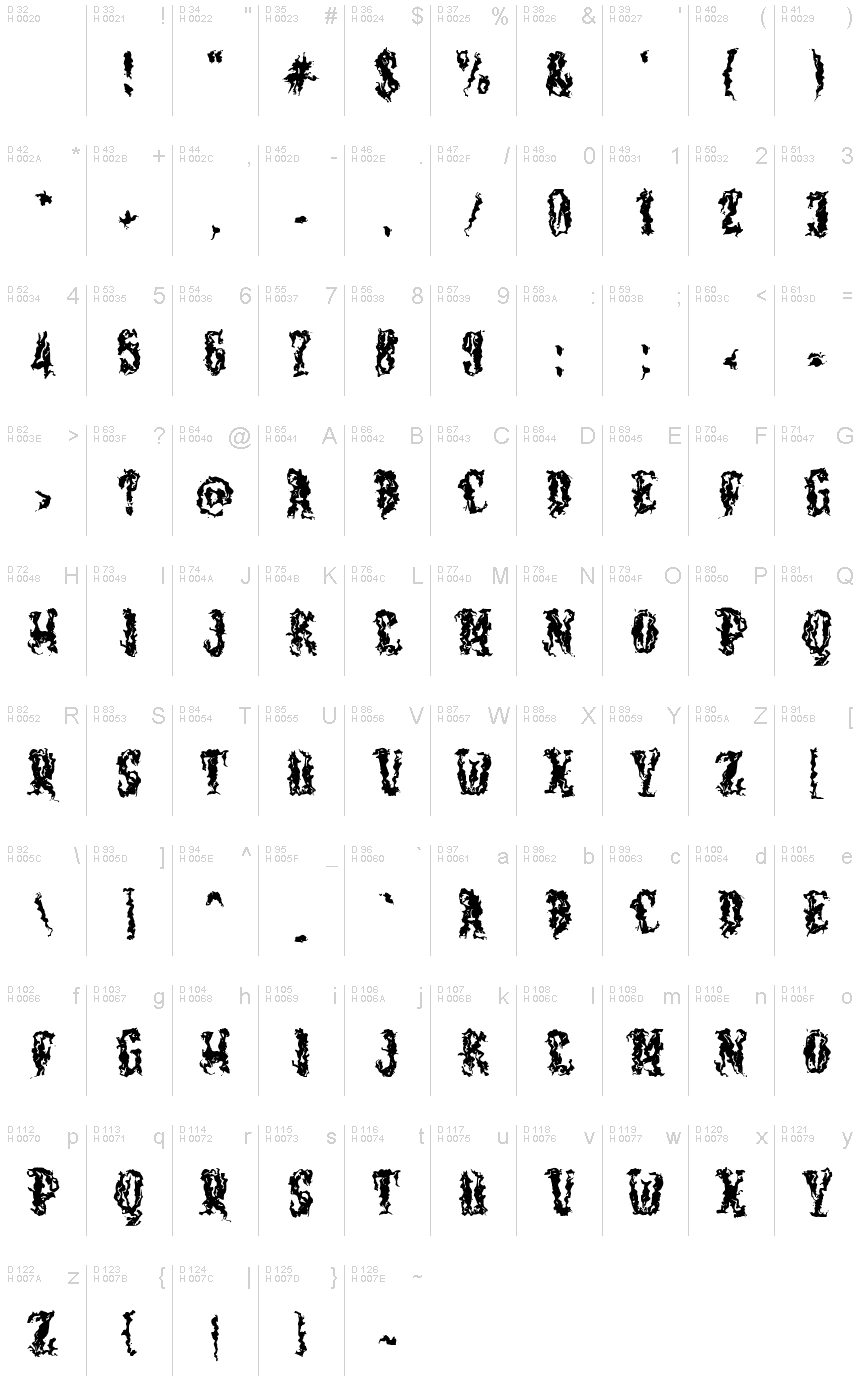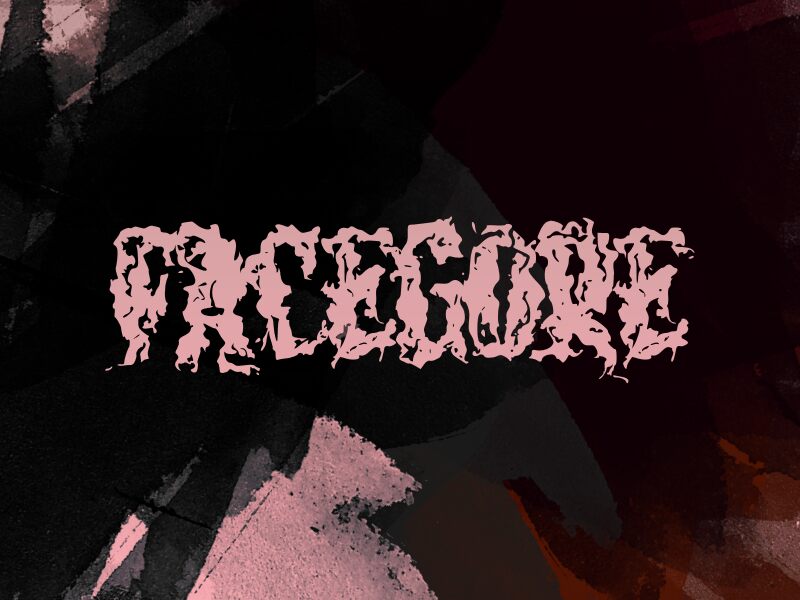
FACEGORE
FACEGORE is a bold and condensed display font designed by Wahyu Eka Prasetya. It has a menacing, scary vibe that's perfect for horror-themed projects, Halloween decorations, or creating an air of mystery. Add this unique font to your design toolkit today!